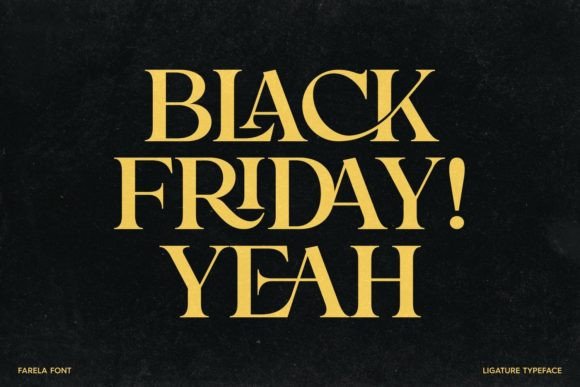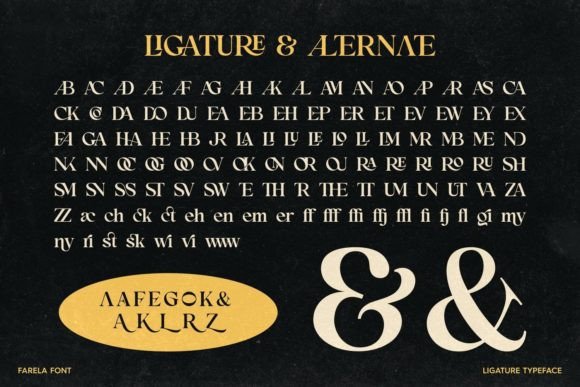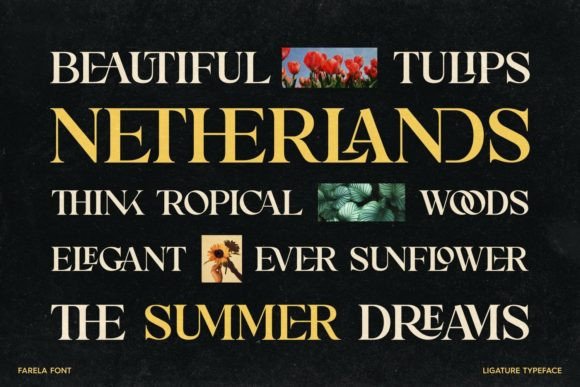
Farela Font: Elevate Your Designs with Elegance and Sophistication
In the world of typography, fonts play a crucial role in conveying the tone and aesthetic of a design. For designers and crafters seeking to add a touch of elegance and sophistication to their projects, the Farela font is an excellent choice. This serif ligature font boasts an attractive, elegant appearance that can instantly elevate your designs to the next level.
The Characteristics of Farela Font
The Farela font is a serif ligature font, characterized by its classic and traditional look. The serif details add a level of sophistication and refinement, making it perfect for designs that require a touch of luxury. The ligatures in the font provide a unique and beautiful connection between letters, creating a seamless and elegant flow.
One of the standout features of the Farela font is its versatility. It can be used in a wide range of design projects, from vintage and classic to retro and modern designs. Whether you’re working on a logo, branding, fashion, magazine, label, poster, album cover, or any other project, the Farela font is sure to make a statement.
Perfect for Luxury and High-End Designs
The Farela font exudes a sense of luxury and high-end quality, making it perfect for designs that require a sophisticated and elegant look. The font’s classic and traditional appearance evokes a sense of timelessness, ensuring that your designs will remain relevant for years to come.
Use Cases for Farela Font
Why Choose Farela Font?
- Elegant and Sophisticated: The Farela font is designed to add a touch of elegance and sophistication to your designs.
- Versatile: Use the Farela font in a wide range of design projects, from vintage to modern designs.
- High-Quality: The font is designed to provide a high-quality and luxurious feel to your designs.
- Easy to Read: The serif details and ligatures in the font make it easy to read, even in small sizes.
In conclusion, the Farela font is an excellent choice for designers and crafters seeking to add a touch of elegance and sophistication to their projects. With its classic and traditional look, versatility, and high-quality design, the Farela font is perfect for a wide range of design projects. Whether you’re working on a logo, branding, fashion, magazine, label, poster, album cover, or any other project, the Farela font is sure to make a statement.